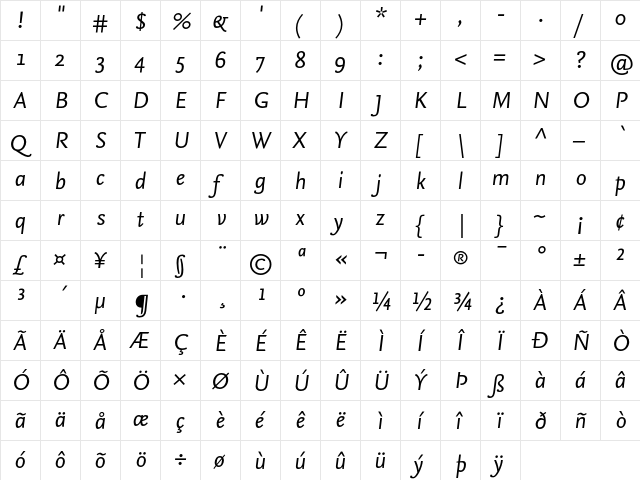
NexusSans Regular Italic Font Preview
NexusSans Regular Italic
NexusSans Regular Italic Font Details
| Style | Regular Italic |
| Version | Version 4.46 | By Martin Majoor, FontShop 2004 | Homemade OpenType version |
Design Context for NexusSans Typeface
NexusSans takes a measured approach to typography — its balanced proportions and neutral character make it a reliable workhorse for both digital and print work. The slanted form adds forward momentum and visual energy.
Pro Tip: Use NexusSans for emphasis, pull quotes, and subheadings where its slanted energy can add rhythm to the layout.